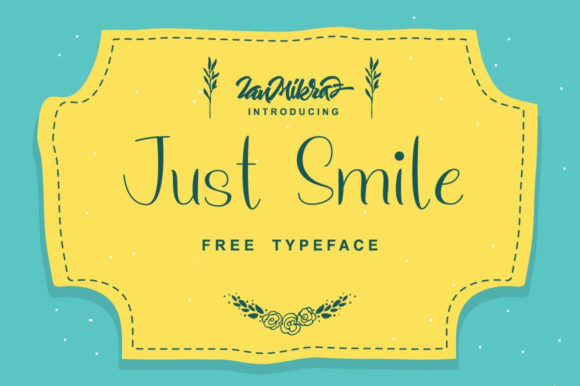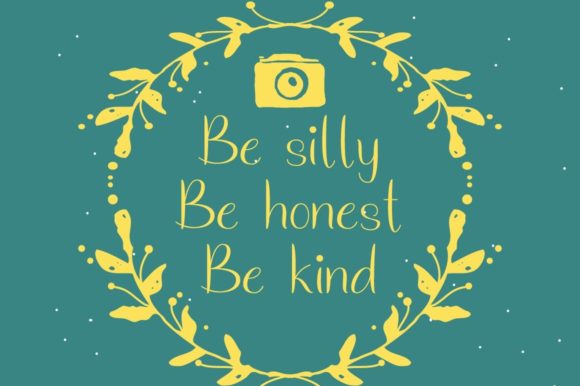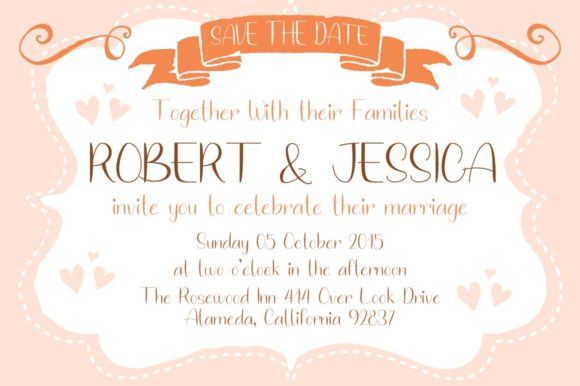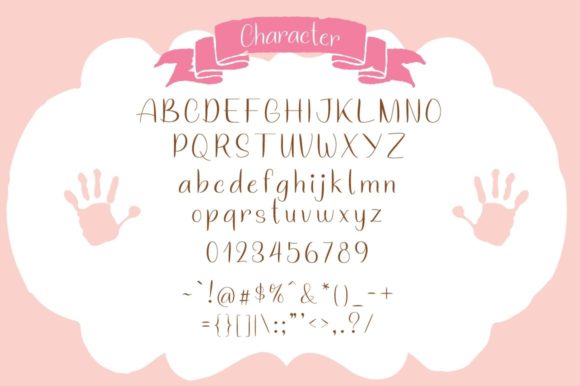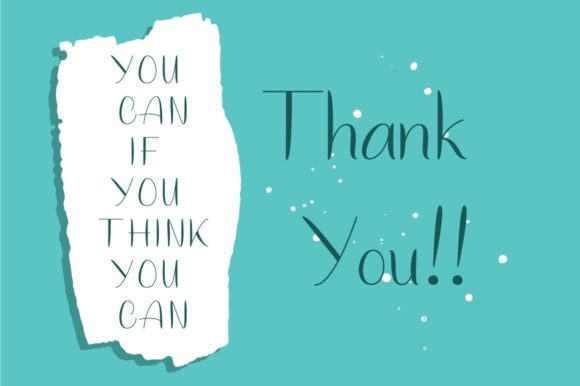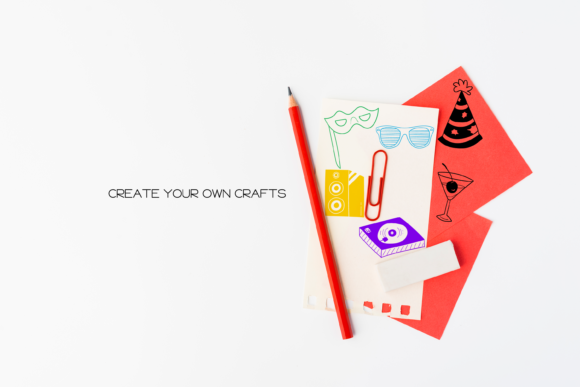
Just Smile
About Just Smile Font
Just Smile is a thin and dainty script font with a contemporary atmosphere and impeccable form, inspired by timeless classic calligraphy. Not too thin and not too thick, balanced and varied, this font was designed to enhance the beauty of your projects.